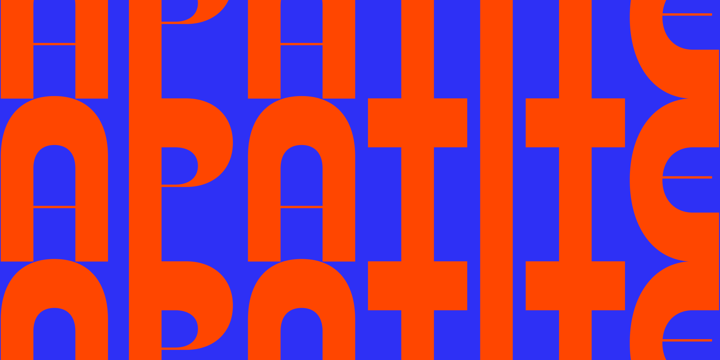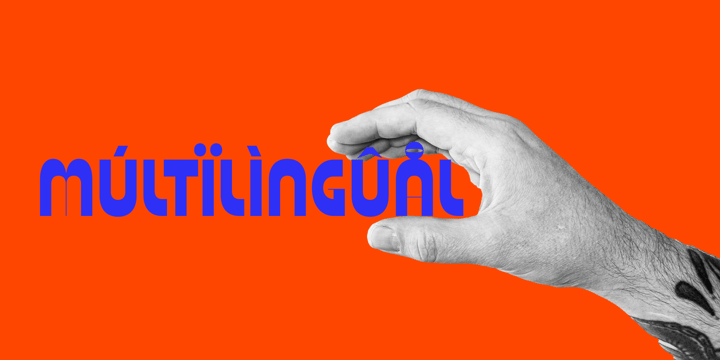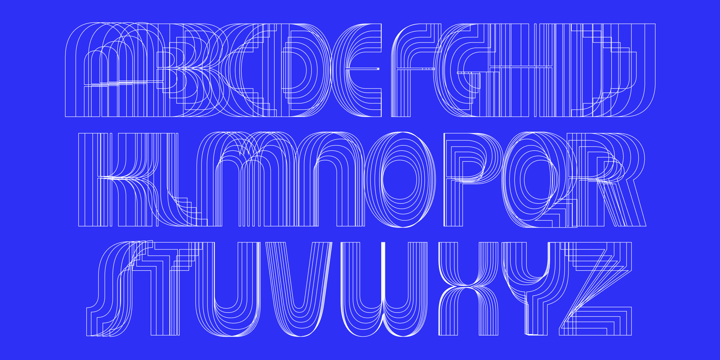
Roman Shchiukin
I began my journey as a type designer in 2011. In 2014, I became one of the winners of the international "Modern Cyrillic" competition. My primary specialization is art direction. As an art director, I have been working since 2015 at various studios. During this time, I have created dozens of custom fonts for advertising projects, and almost always designed logos with authentic typographic elements. I really enjoy creating charismatic fonts with memorable visual characteristics, and this has been a great asset in my main work.
Now, I am focusing on developing my own type studio, where I continue to create unconventional fonts with an emphasis on detail. My experience allows me to craft fonts that are not only functional but also visually engaging, suitable for creative advertising, film, books, and magazines. My goal is to create typography that inspires and helps convey your ideas.